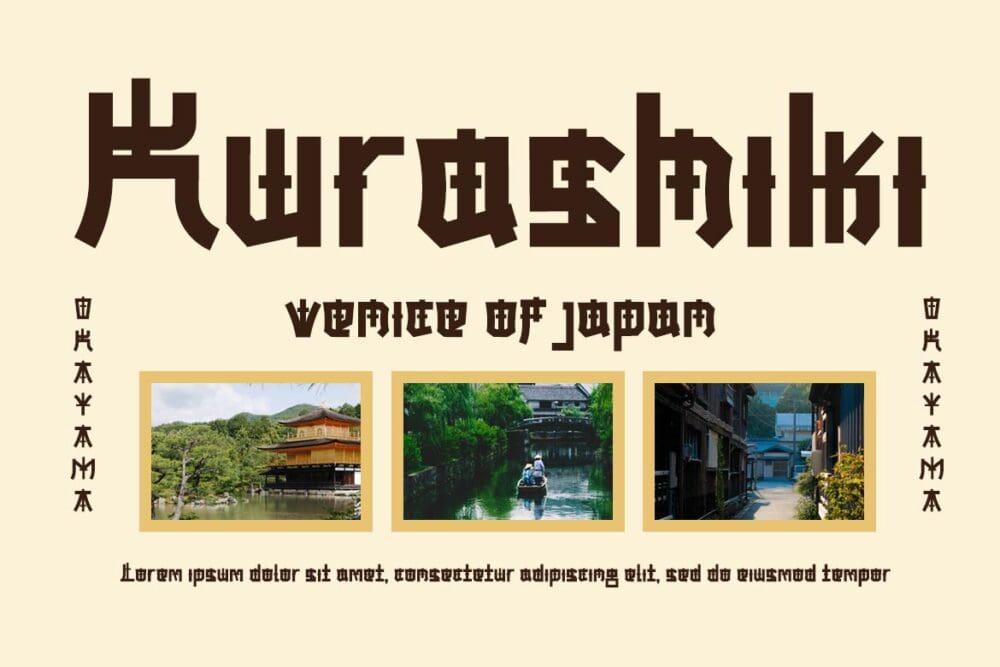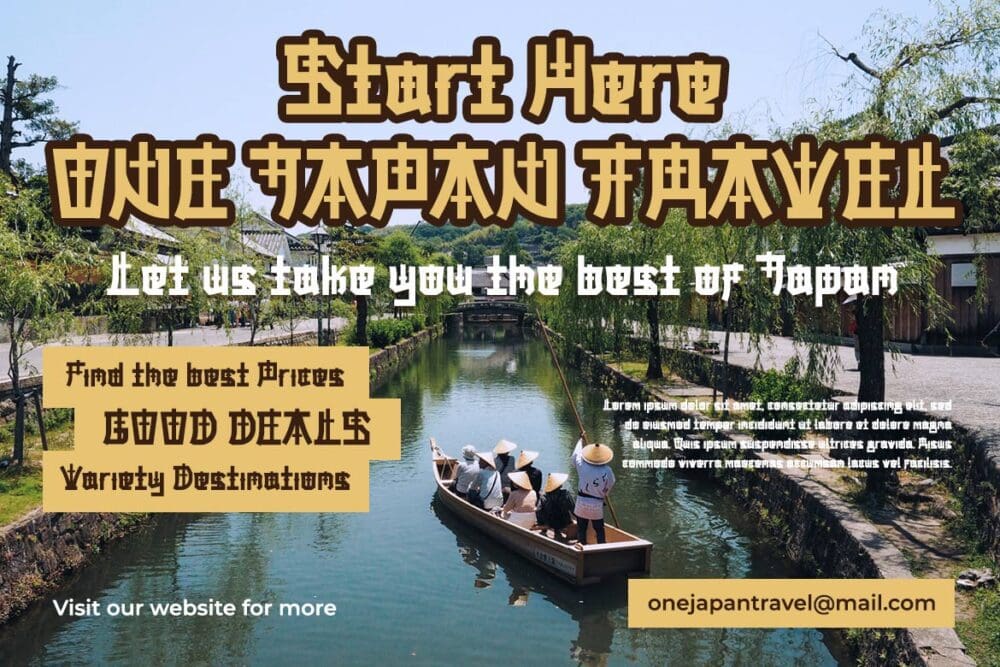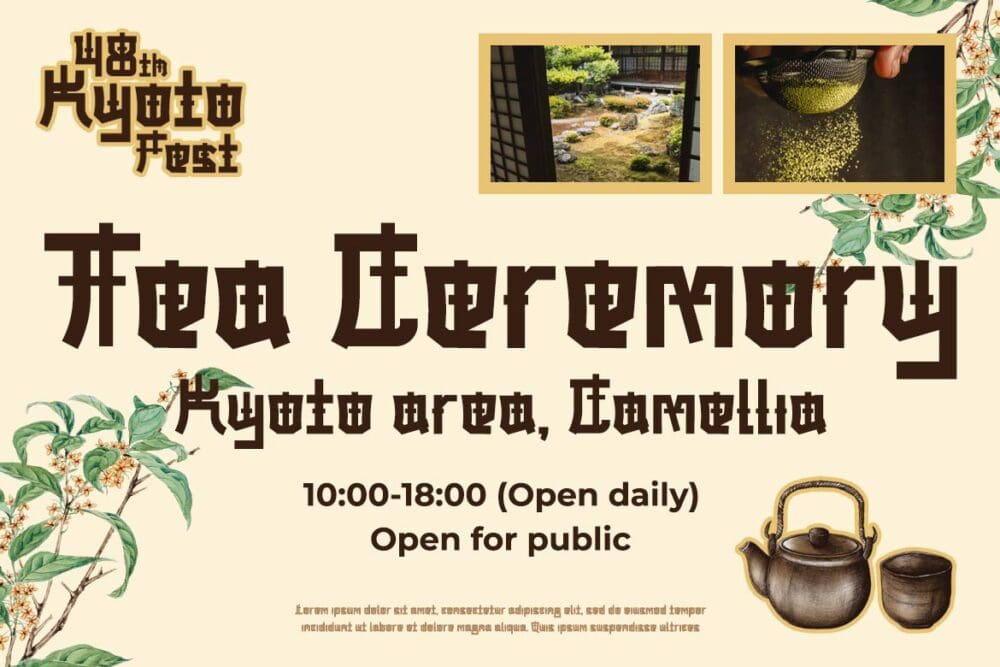
Dezaru Font
DEZARU is a fictitious Japanese display font created by combining Japanese letters with well-known and understood san serif fonts from throughout the world. Imagine all promotional materials can be understood and understood by all audiences in various parts of the world, your message will reach the hearts of the audience, and your brand will be very easy to remember by many people because the display of this font is contemporary and different from the others.